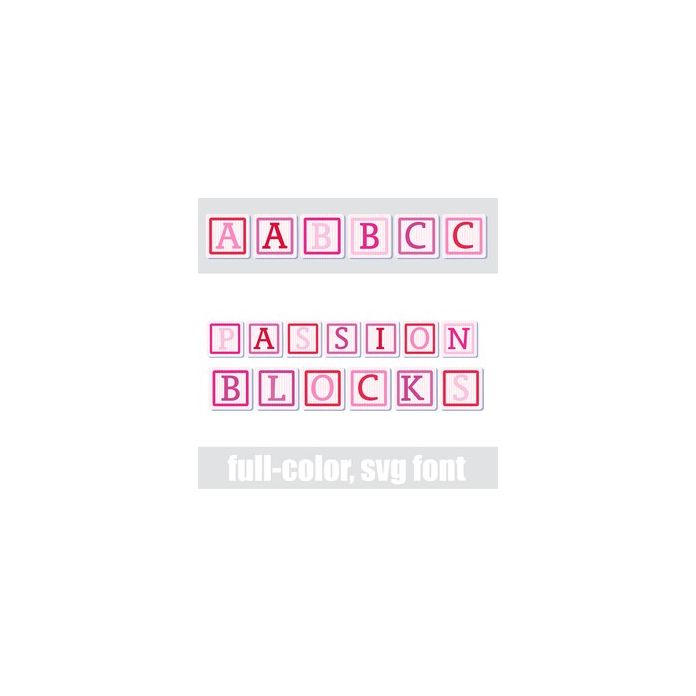
This full-color font looks like youthful children's blocks in a Valentine's color palette. There is an alt case w/ additional colors you can access through your system or Silhouette's glyph map.